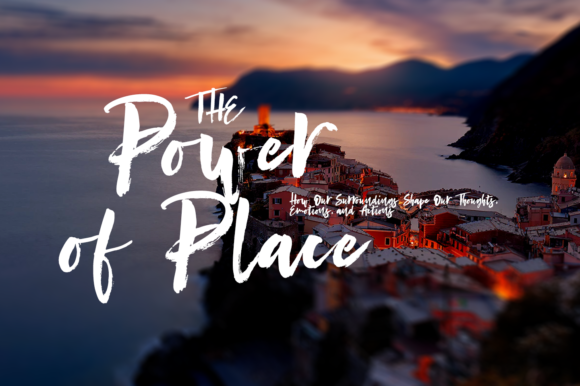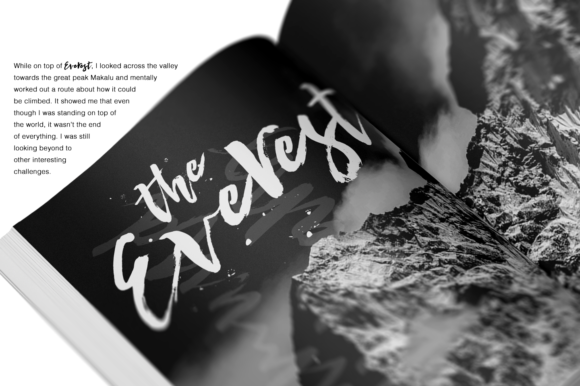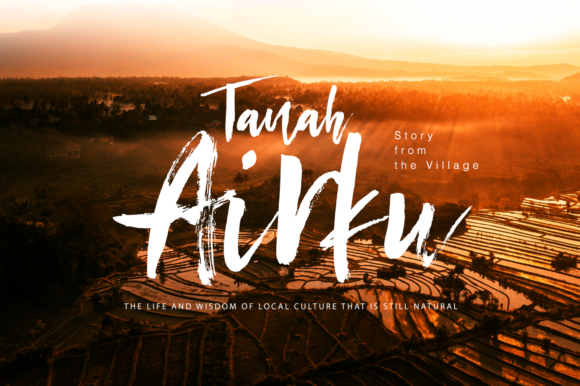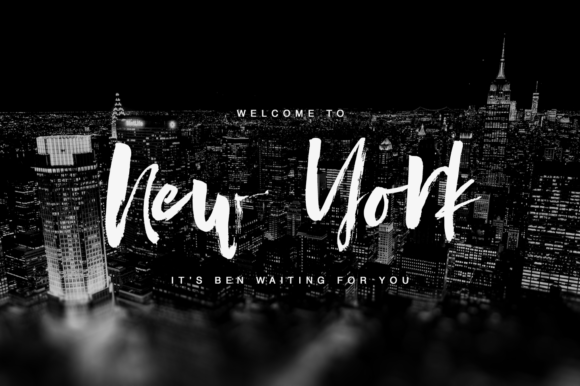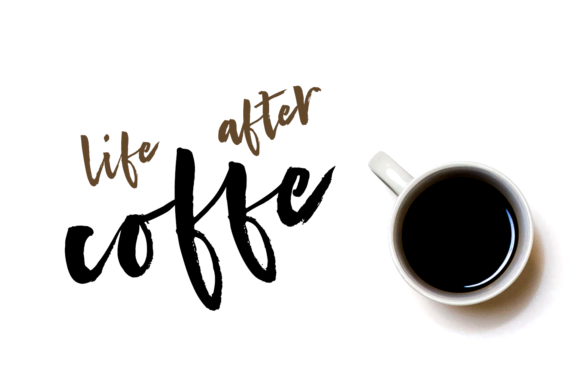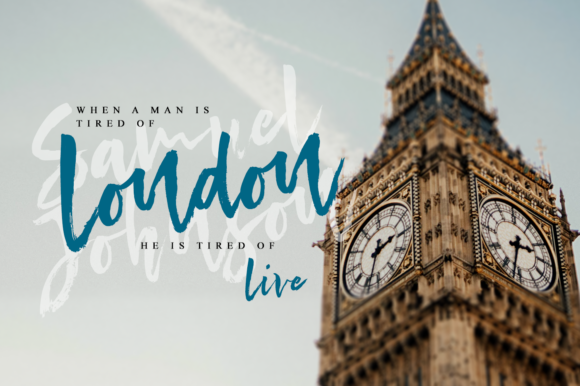
Conundrum Font: A Cool and Organic Brush Font for Designers and Crafters
Are you tired of using the same old fonts in your designs? Look no further than Conundrum, a cool and rough brush font that’s perfect for adding a touch of natural elegance to your projects. With its unique, hand-painted style, Conundrum is sure to make your designs stand out from the crowd.
The Origins of Conundrum
Conundrum is a brush font that’s designed to look like it was quickly painted on paper. The font’s creator used a brush to craft each letter, resulting in a natural and incredibly organic look that’s perfect for designers and crafters who want to add a personal touch to their work.
The process of creating Conundrum involved a lot of experimentation and testing. The designer wanted to create a font that was not only unique but also versatile, so they spent hours perfecting the brushstrokes and letterforms. The result is a font that’s both rough and refined, with a charm that’s hard to resist.
What Makes Conundrum Special?
So, what sets Conundrum apart from other fonts on the market? Here are just a few things that make it special:
- Natural look: Conundrum has a natural, hand-painted look that’s perfect for designers who want to add a touch of warmth and personality to their work.
- Organic feel: The font’s organic feel makes it perfect for projects that require a more rustic or vintage look.
- Versatility: Conundrum is a versatile font that can be used for a wide range of projects, from branding and packaging to scrapbooking and journaling.
How to Use Conundrum in Your Designs
Conundrum is a versatile font that can be used in a wide range of design projects. Here are just a few ideas to get you started:
- Branding and packaging: Use Conundrum to add a touch of personality to your brand’s packaging and marketing materials.
- Scrapbooking and journaling: Conundrum is perfect for scrapbooking and journaling projects, where its natural look and organic feel can add a touch of warmth and personality.
- Sign making: Use Conundrum to create eye-catching signs and posters that are sure to grab attention.
- Digital design: Conundrum can also be used in digital design projects, such as website headers and social media graphics.
Tips for Getting the Most Out of Conundrum
Here are just a few tips for getting the most out of Conundrum:
- Experiment with different colors: Conundrum looks great in a wide range of colors, so don’t be afraid to experiment and find the perfect hue for your project.
- Mix and match: Try mixing and matching Conundrum with other fonts to create a unique and eye-catching look.
- Play with texture: Conundrum’s natural look and organic feel make it perfect for use with textured backgrounds and other design elements.
Conundrum is a cool and rough brush font that’s perfect for designers and crafters who want to add a touch of natural elegance to their projects. With its unique, hand-painted style and versatile design, Conundrum is sure to become a favorite in your font collection. So why wait? Download Conundrum today and start creating your own unique designs!